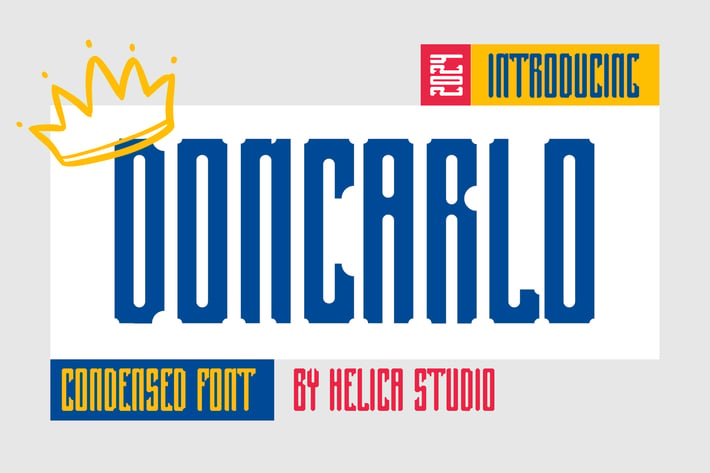
Doncarlo Condensed Font
Doncarlo Condensed Font typeface is perfect for crafting elegant quotes, stunning logos, captivating magazine headers, and so much more.